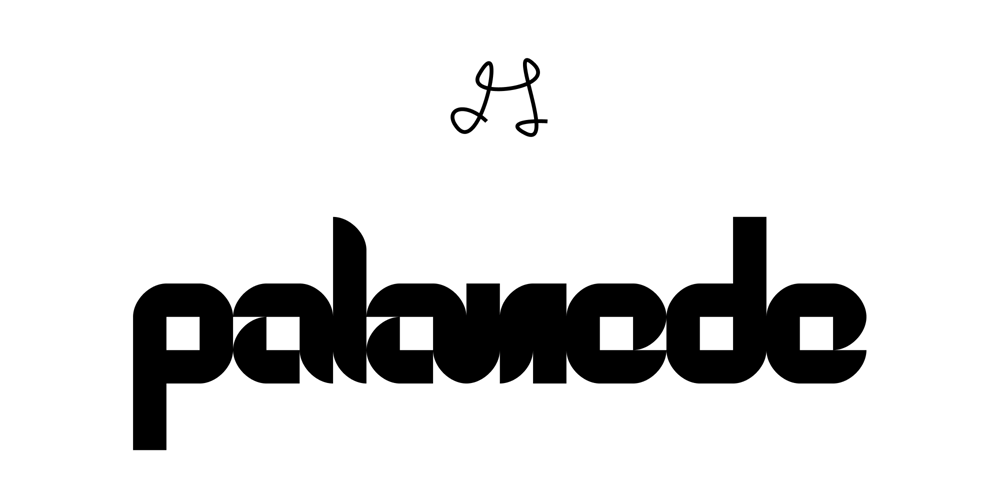
IL Palamede Font Family was designed by Ivan Larionov and published by Notope. IL Palamede contains 1 styles and family package options. IL Palamede is a typeface with just one style, referring by its name to the French chess magazine Le Palamède.Connects with chess here not only the name. Each symbol is built on a 5×5 grid with 3×3 priority. At the same time, the logic here is higher than optical compensation, so you can observe here quite dense, for example “b”. Thanks to this solution, the typed text is balanced in width, and it also creates the feeling of a chess cell, where black and white cells alternate.Connects with chess here not only the name.Each symbol is built on a 5×5 grid with 3×3 priority. At the same time, the logic here is higher than optical compensation, so you can observe here quite dense, for example, “s”. Thanks to this solution, the typed text is balanced in width, and it also creates the feeling of a chess cell, where black and white cells alternate.Use this font for any purpose that includes winning or enjoying.